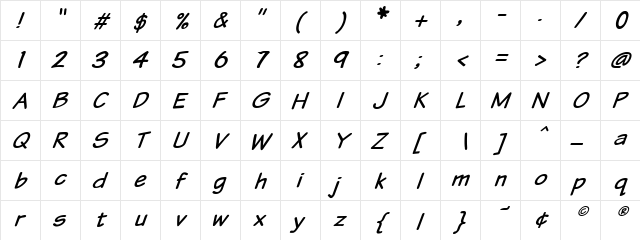
VTCSundaykomix Italic
| Designer | WolfBainX |
Design Context for VTCSundaykomix Typeface
VTCSundaykomix offers clean, dependable letterforms without strong stylistic allegiance, making it a practical choice for designers who need flexibility. The slanted form adds forward momentum and visual energy.
Pro Tip: Try VTCSundaykomix for annotation and caption copy alongside an upright companion — the contrast in angle creates a dynamic but ordered typographic system.